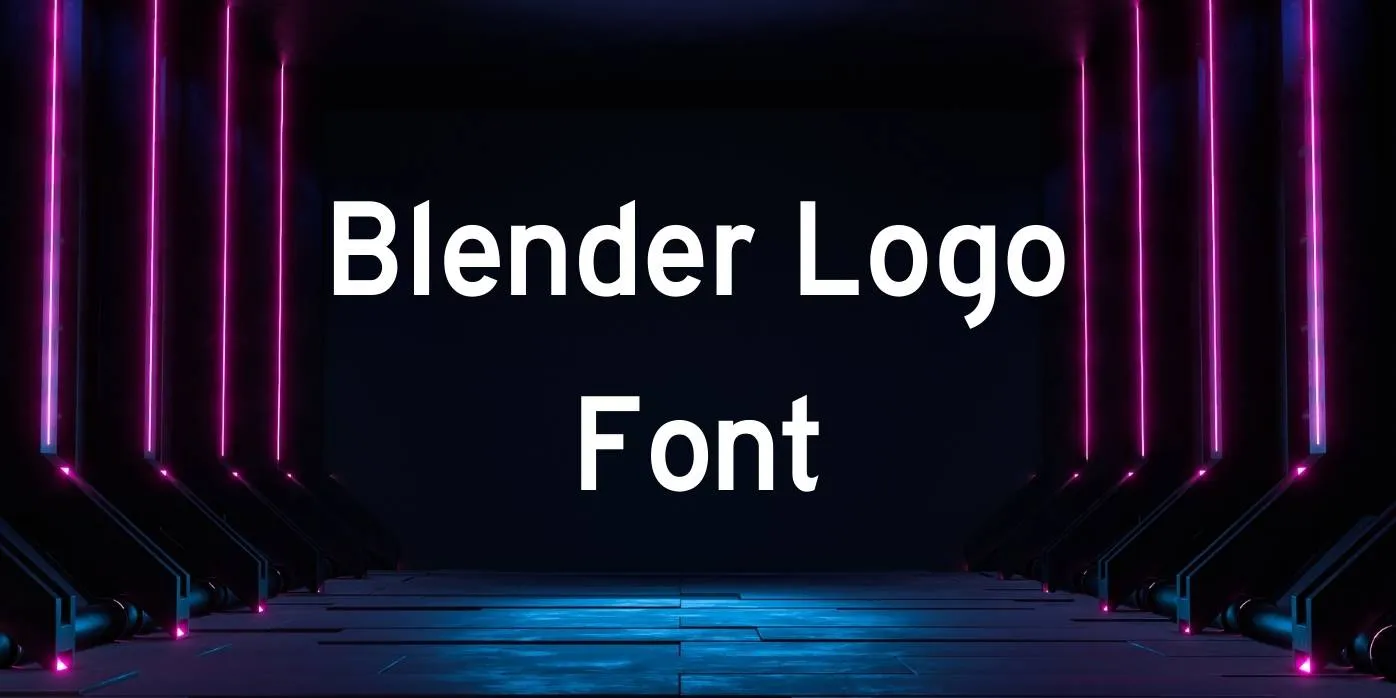
Blender Logo Font
The Blender Logo Font family has been specially designed to represent the iconic logo of the well-known 3D creation suite created by the Blender Foundation. This font family is designed by an unknown designer. The font family consists of one unique style, which proves that this font family is certainly not an afterthought or a generic font created in haste. Rather, it stands out with its highly-stylized and distinct letterforms, which nicely embody the spirit of the Blender 3D suite.
Its thick, bouncy, and rounded letterforms give it a friendly vibe. With a strong geometric backbone, the font is robust enough to be used for logos and tags but still retains a pleasant aesthetic that won look out of place in editorial design. The font has also been carefully crafted to include smart features such as alternate characters, symbols, and ligatures. This adds an extra layer of professionalism and refinement to the font and allows users to create unique and interesting designs with it.
Additionally, it includes both a Latin and a Cyrillic character set, making it suitable for a wide range of languages. The fact that the font was designed by an unknown designer makes this font family all the more interesting, as it gives us rare insight into blender logo font. This typeface is very similar to the nostra font. Usage The use of a blender logo typeface is essential to ensure consistency and brand recognition, which can be achieved with the correct design.
The font is robust enough to be used in a variety of applications such as logos and tags and is thus an effective way to communicate the identity of a company or product. Many companies and brands have had success using the blender logo font for branding purposes, which shows the significance of the font in creating a strong visual identity for a business. Additionally, the font is versatile and can be used in different contexts such as print, web, and other media. With a consistent and unique look, the blender logo font is an excellent choice to create a unified brand image.
This font is also paired with the sprat font. It is also important to note that the font is sophisticated and professional looking, which makes it suitable for corporate settings and marketing materials. Additionally, the font is designed to be easily read from any angle, so it can be clearly seen from a variety of distances, such as on a billboard or in a store window. This means that customers will be more likely to remember the font and recognize it when they see it.
FAQs! What are the main uses of Blender Logo Font? This font is versatile and can be used in different contexts such as print, web, and other media. With a consistent and unique look, the blender logo Typeface is an excellent choice to create a unified brand image.
The most similar typefaces of Blender Logo Font? Kelson Sans Font, Kanit Medium Font, Free Road Regular Font, And Jefferies Font are the typefaces that are most similar to this Font family. Blender Logo Font is a Google Font? It’s not available on google font library, but you can easily download it from our website.